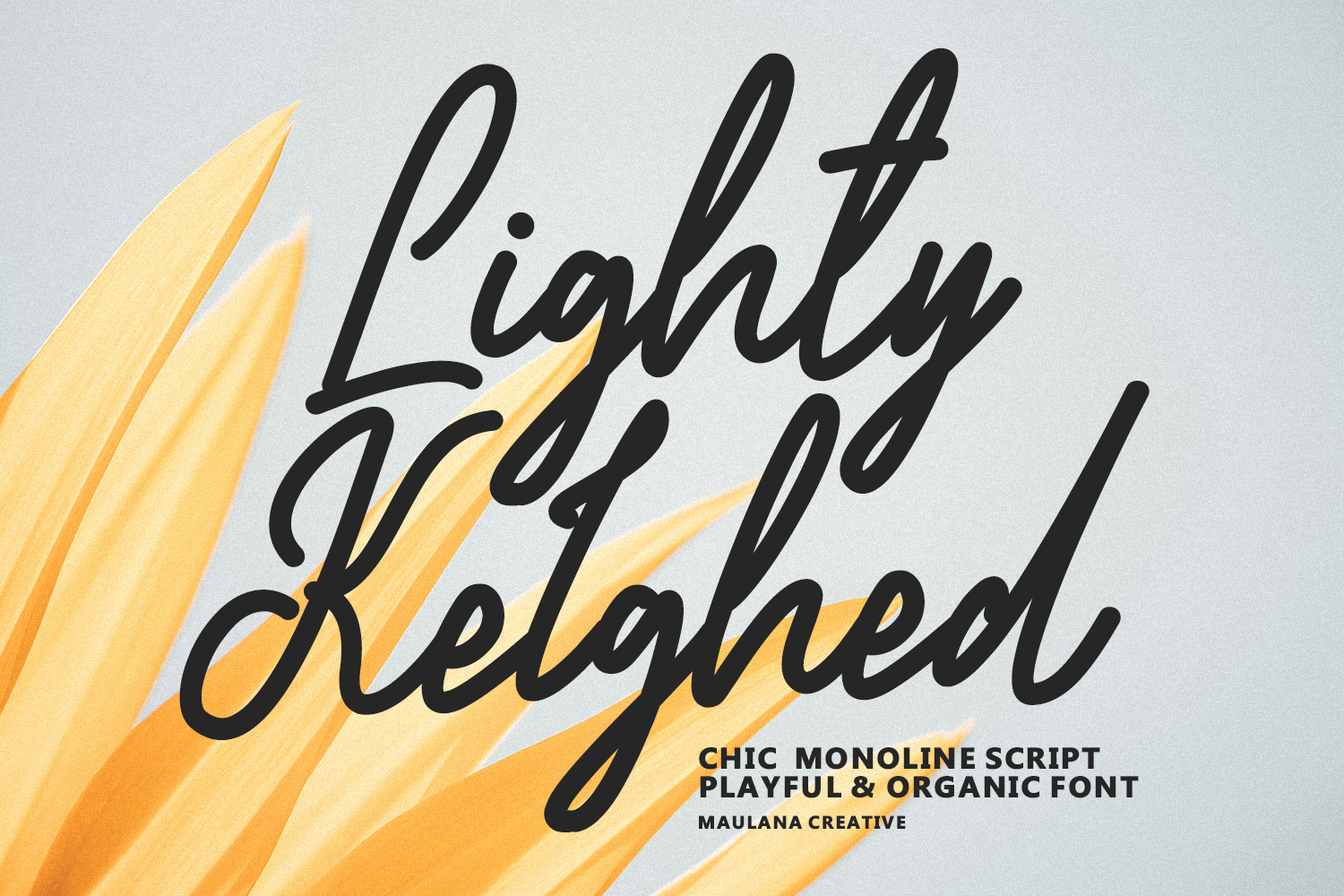
Lighty Kelghed Chic Monoline Script Playful Font
Lighty Kelghed is a stylish monoline script font that strikes a perfect balance between playful ener…